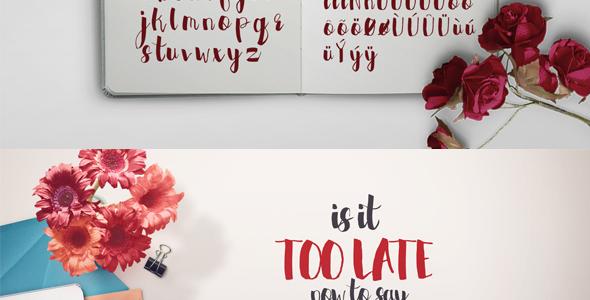
FaerieFire Typeface
Introducing FaerieFire Typeface an excelent Typeface for Quotes, Brand and etc. and suitable for any design needs, branding, modern advertising design, Art Quote, Book/Cover Title, special events, custom mug, pillow, t-shirts, any brush lettering needs and more. What’s Inside the font? Regular Font with over 100 glyphs inside. Contains multilingual support with accented characters for international (Western European, Central European and South Eastern European) users. 10 Free Swashses/Ornament ( A – J ) 2 TTF included on the Files ( Regular Font and Ornament ) Feel Free to ask anything about this font, Good luck and happy Designing. Ovoz Digital Indonesia